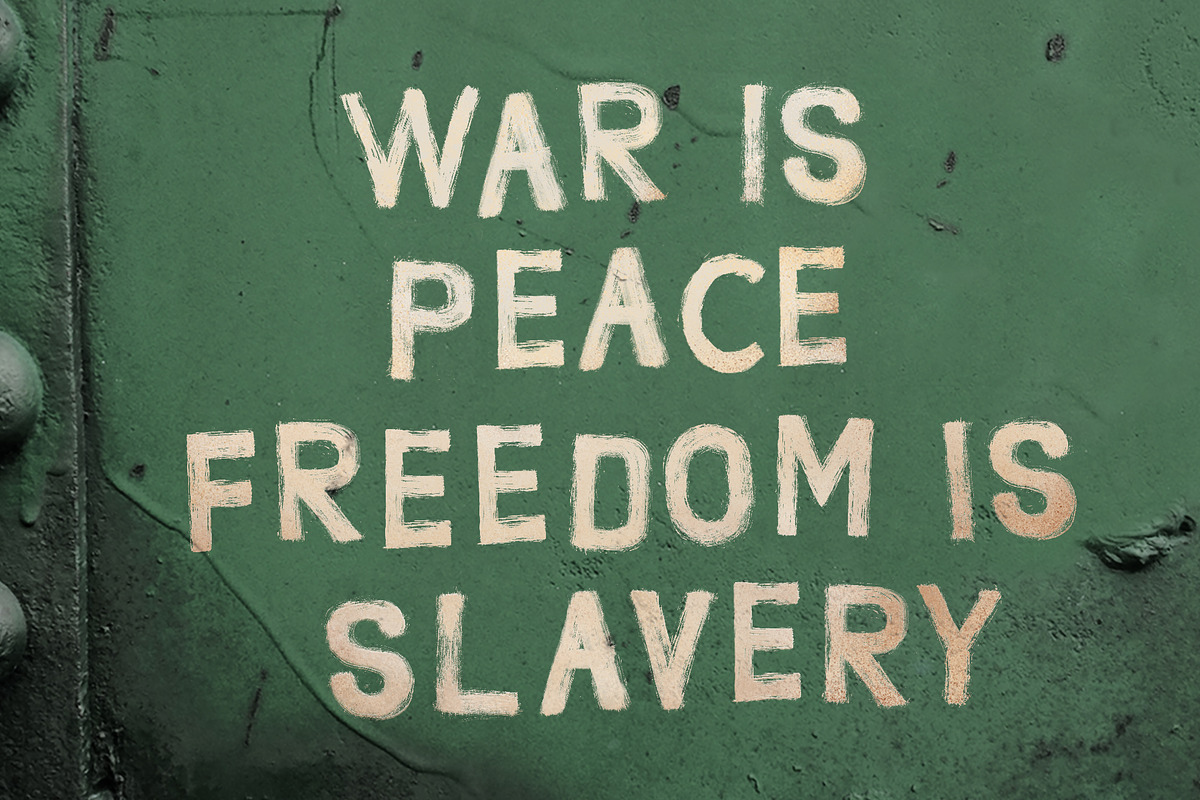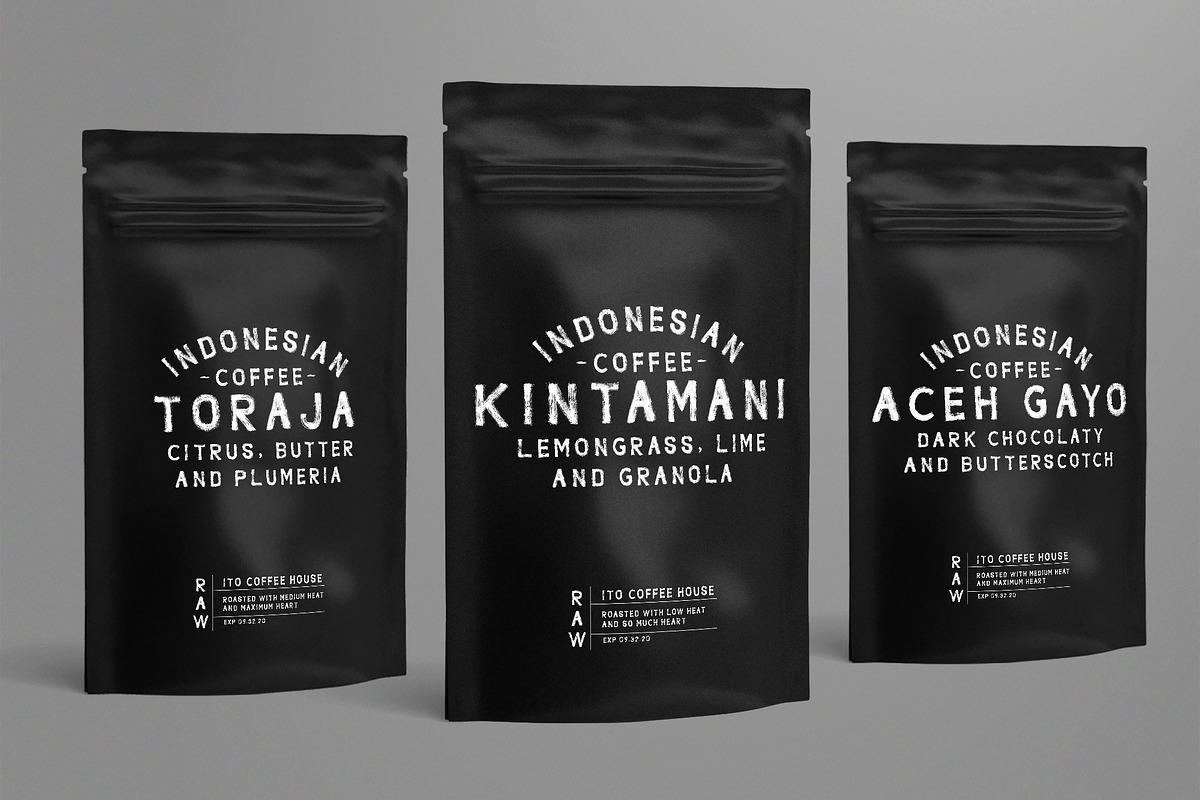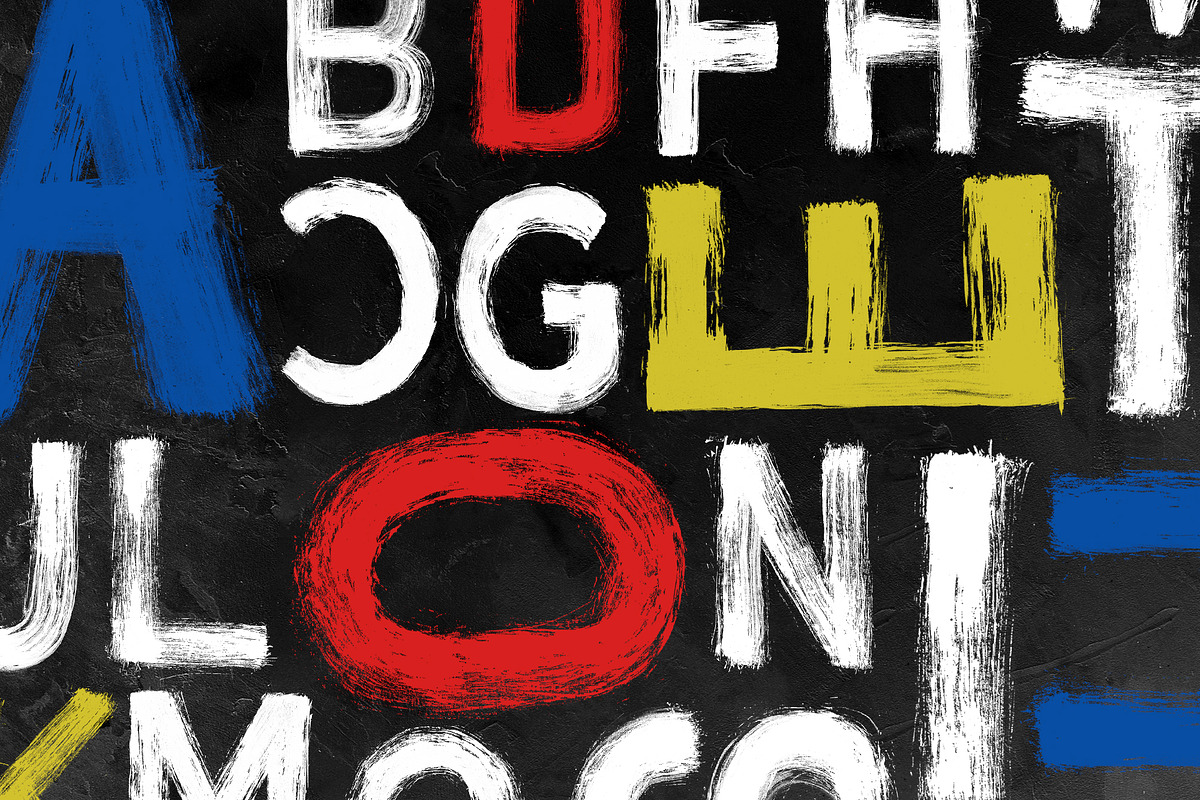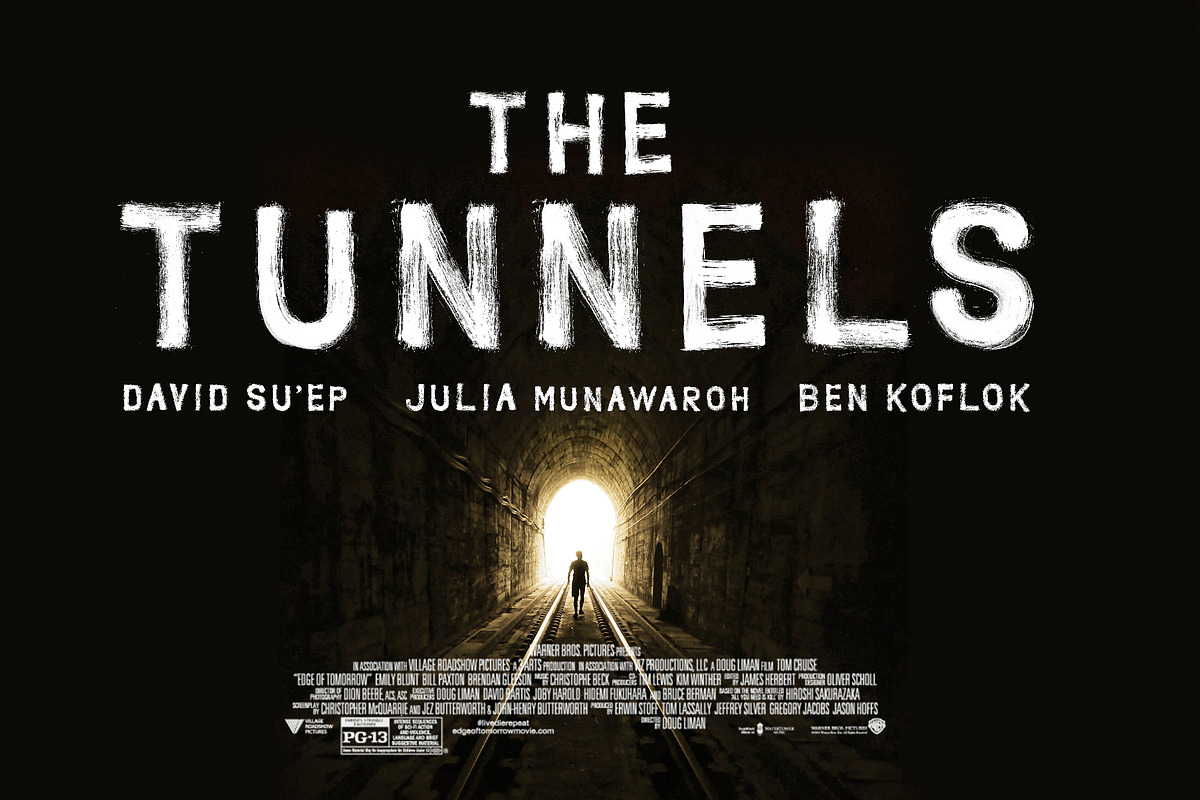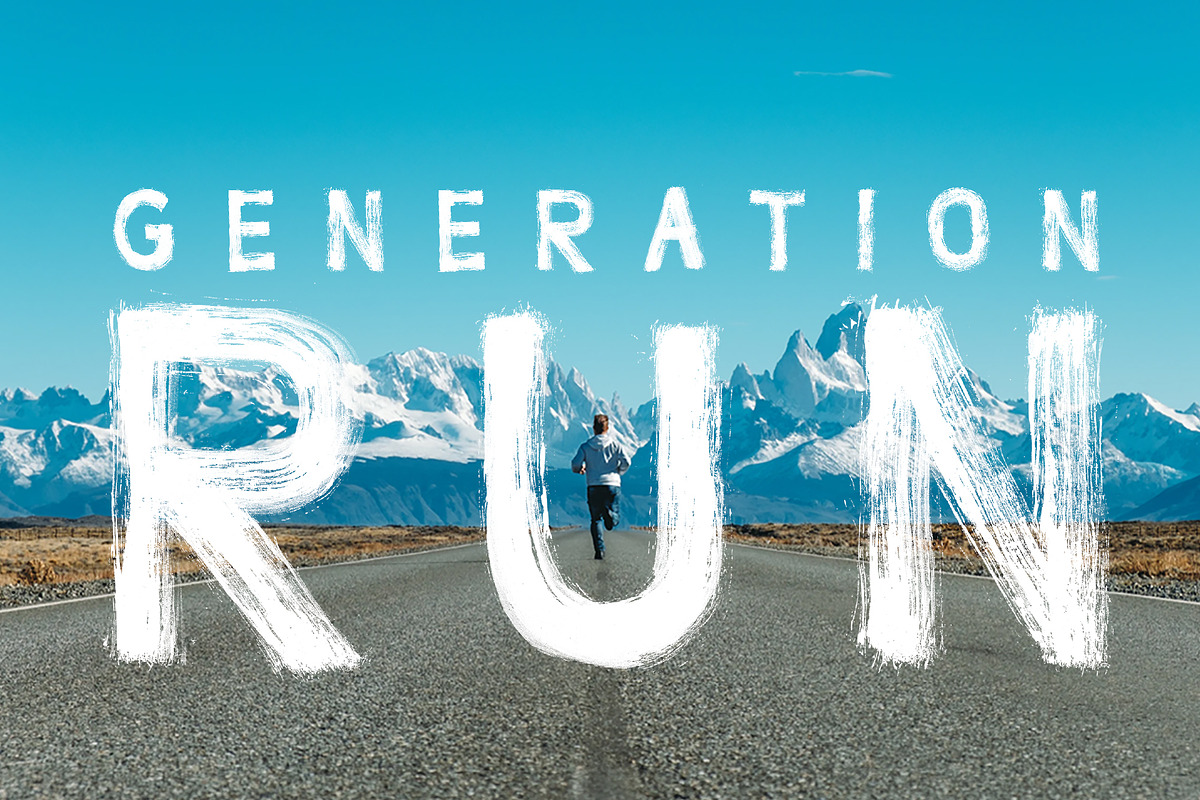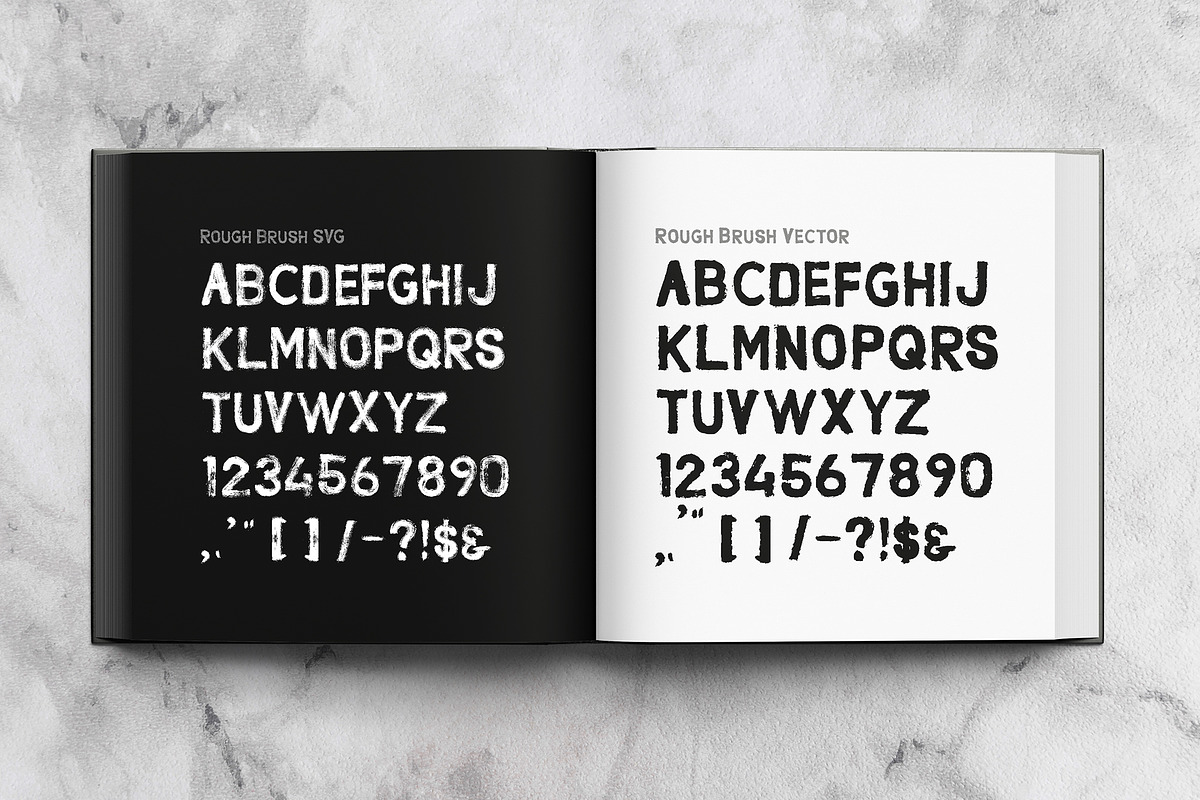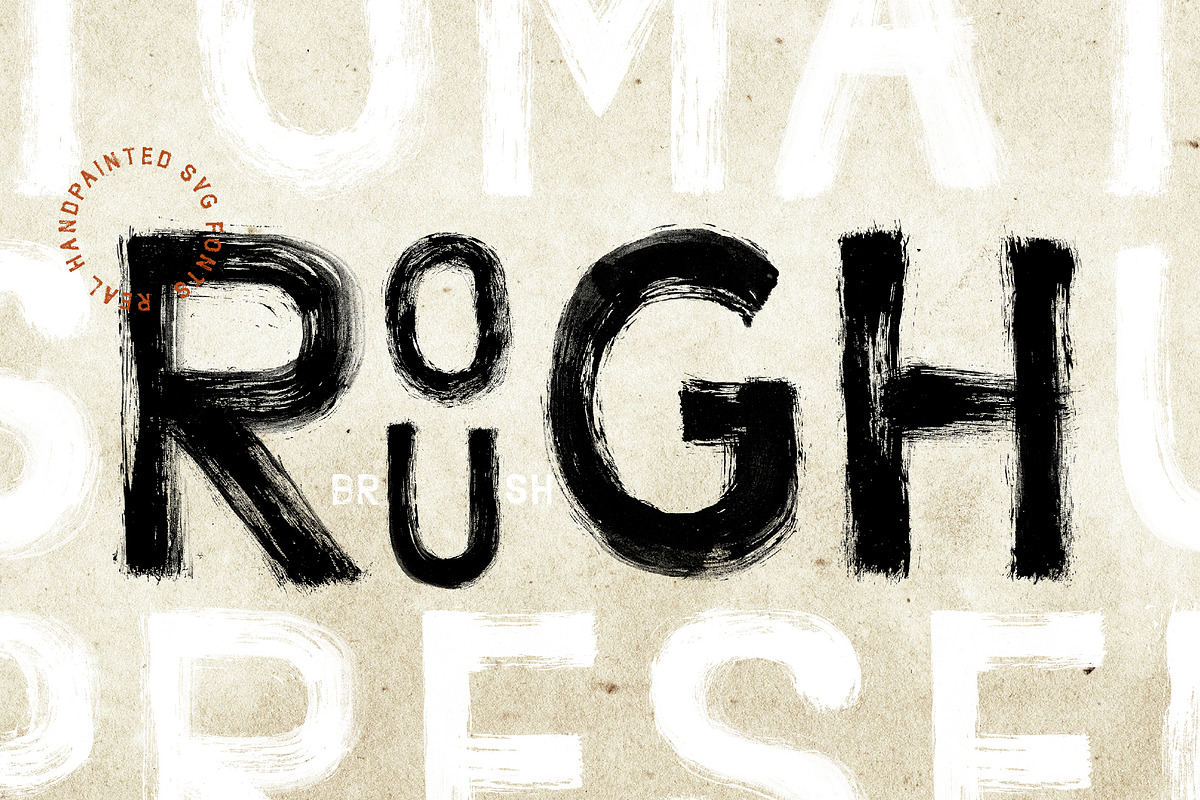
Handpainted Rough Brush SVG Fonts
Create your design to the next level with this pure handpainted SVG fonts, perfect for your realistic grunge and modern designs. We using real brush to gain rough effect like this, you'll se the differenbt between real brush and photoshop brushes, create your design into the next level.
Why Handpainted Rough Brush SVG Fonts is worth a look
Handpainted Rough Brush SVG Fonts by tomatstudio fits naturally into Branding, posters, packaging, typography.